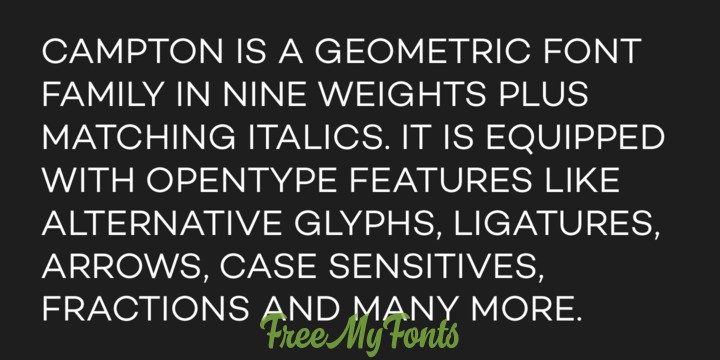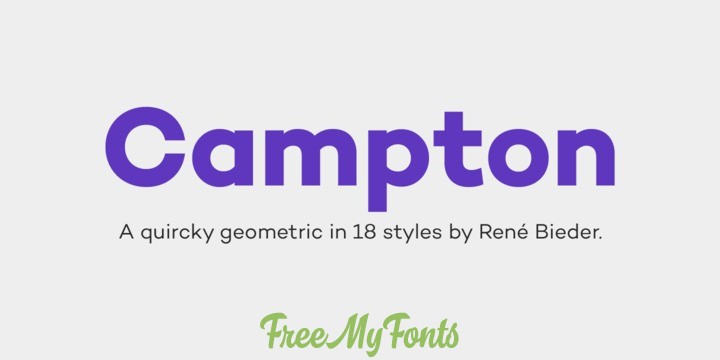
About this font family
Campton is an unconventional typeface based on the first steps of the newly born sans serif genre in the early twentieth century. Its character draws inspiration from Gill Sans and Johnston Sans while combining it with contemporary elements. The result is a modern and unorthodox family that is perfectly suited for graphic design application ranging from editorial and corporate design to web and interaction design. Campton comes in nine weights with matching italics and is equipped with a wide range of opentype features.